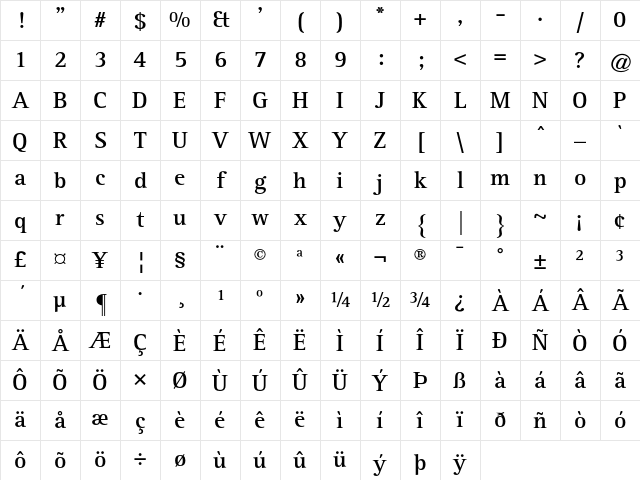
Rotis Serif AT Bold
Design Context for Rotis Serif AT
Rotis Serif AT carries the refined structure of traditional serif typography, with bracketed terminals and considered proportions that communicate credibility and craft. Its bold stroke weight gives it real presence on the page.
Pro Tip: Use Rotis Serif AT for editorial body copy and considered headline work. Pair with a neutral sans for UI elements or captions to create a classic hierarchy.